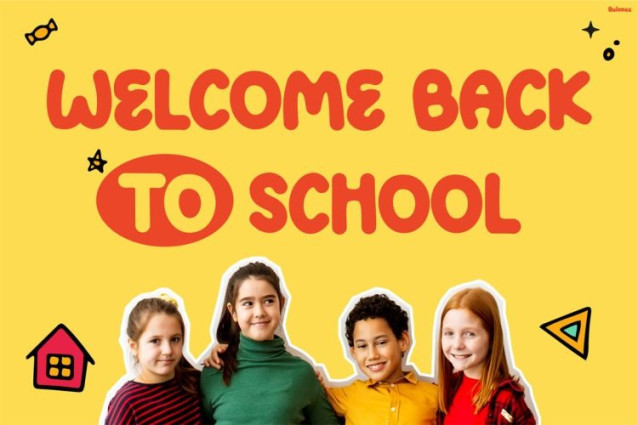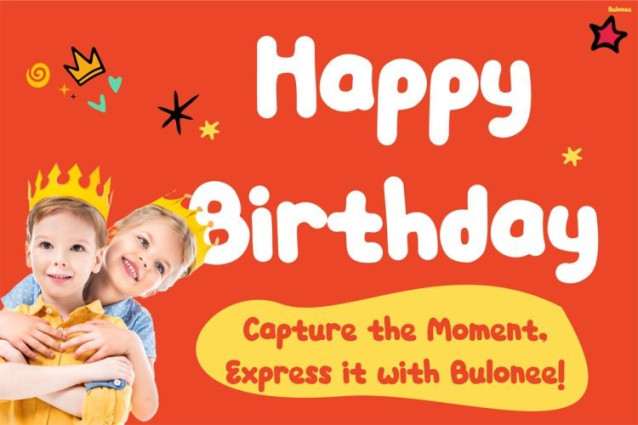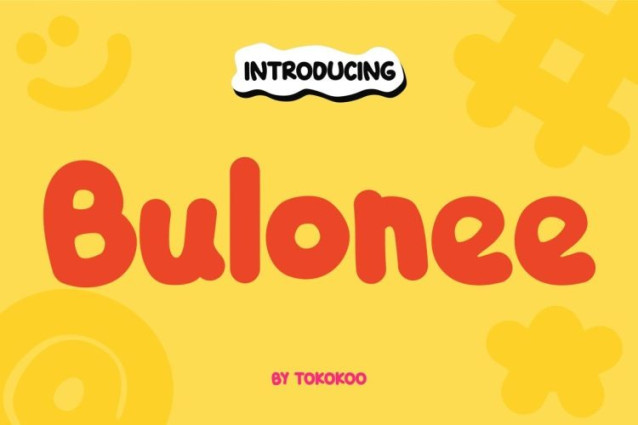
Bulonee Font
Bulonee Font is a cheerful and playful typeface made to bring instant happiness to your designs. Its rounded shapes and bold strokes create a friendly and welcoming look. Each letter feels fun, soft, and full of energy. As a result, every word looks lively and expressive. This font captures the true spirit of childhood. It feels imaginative, warm, and easy to enjoy. At the same time, Bulonee stays clear and readable across many sizes. Because of this balance, it works well for both digital and print designs.
Kids Font Bulonee features smooth curves and consistent proportions. These details give the font a polished yet playful style. Each character looks bold without feeling heavy. In addition, the spacing keeps text clean and easy to read. Bulonee includes uppercase and lowercase letters, numbers, and punctuation. Therefore, you can design freely without limits. This font shines in posters, packaging, worksheets, and social media graphics. Moreover, it pairs well with simple sans-serif fonts. This makes your layouts look balanced while staying fun.
Perfect For
Kids Font Bulonee suits designers who love joyful visuals. It works great for children’s brands, schools, and creative projects. You can use it for kids’ books, birthday invitations, and learning materials. It also fits toy packaging, playful logos, and family-friendly promotions. In addition, content creators and small businesses will find it easy to use. If your audience values fun and warmth, Bulonee is a strong choice. Whether you are designing for kids, families, or brands with a cheerful identity, Bulonee helps your message feel warm, fun, and approachable.
Why You’ll Love It
Kids Font Bulonee does more than decorate text. It adds emotion and personality to every design. Each letter helps your message feel friendly and positive. So, if you want designs that spark smiles, this font delivers. Choose Bulonee to bring joy, charm, and creativity to your work today.